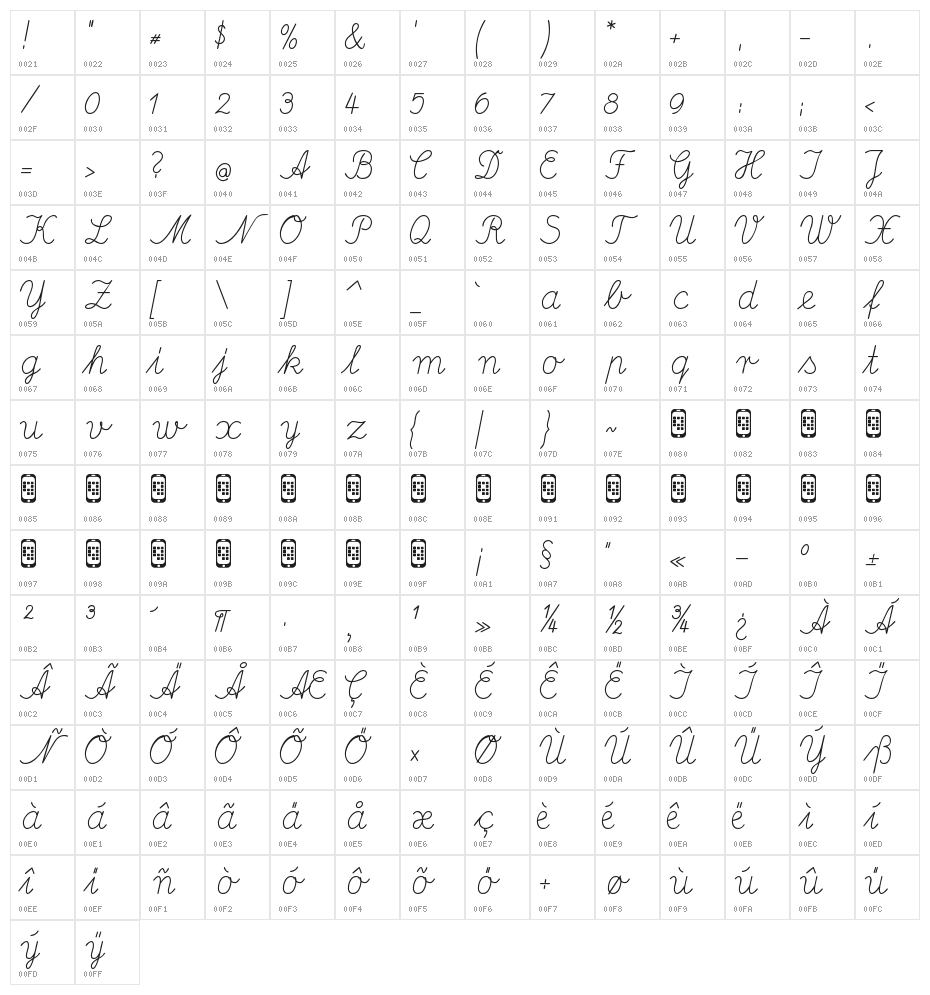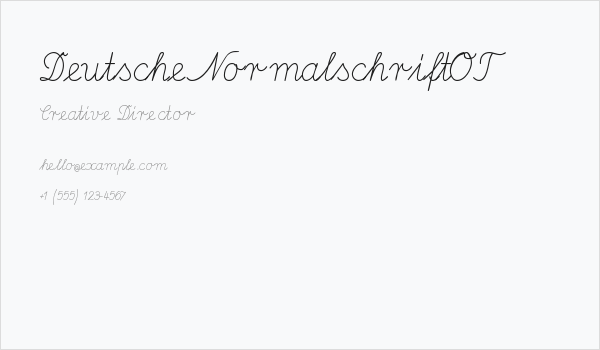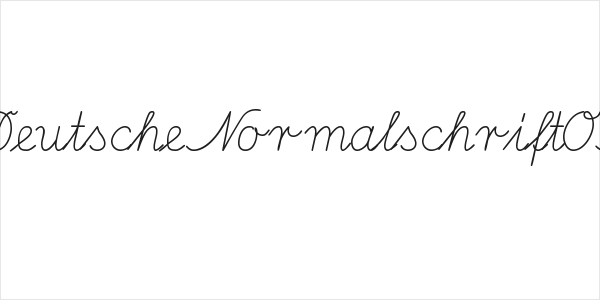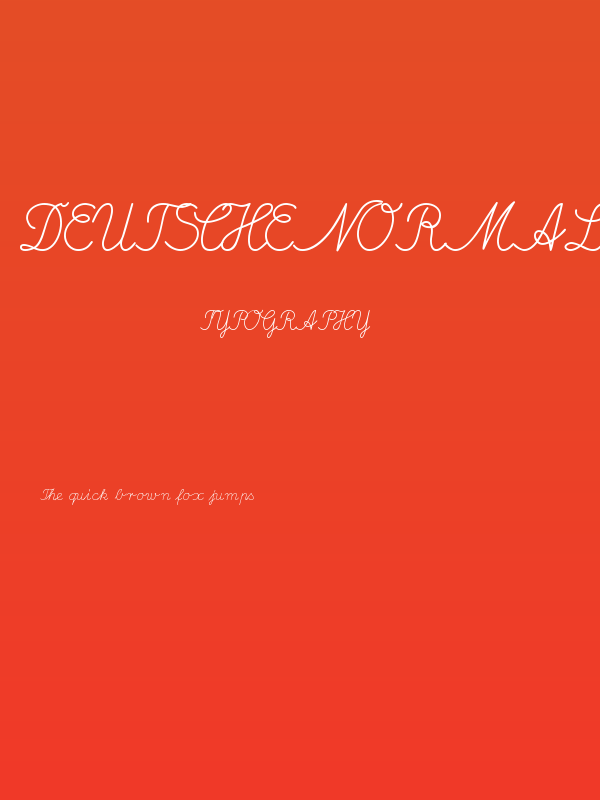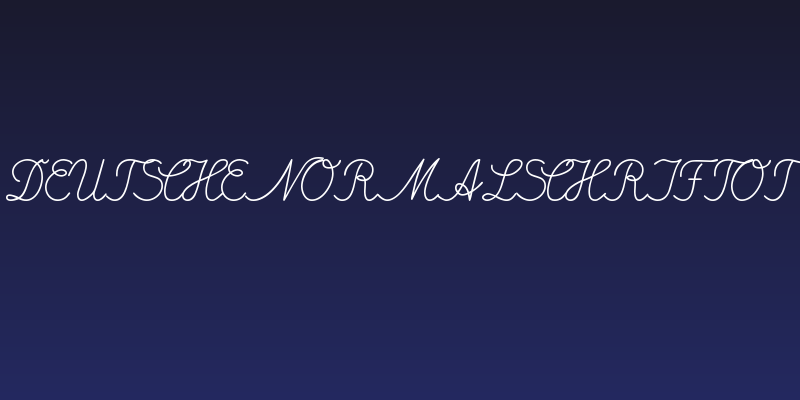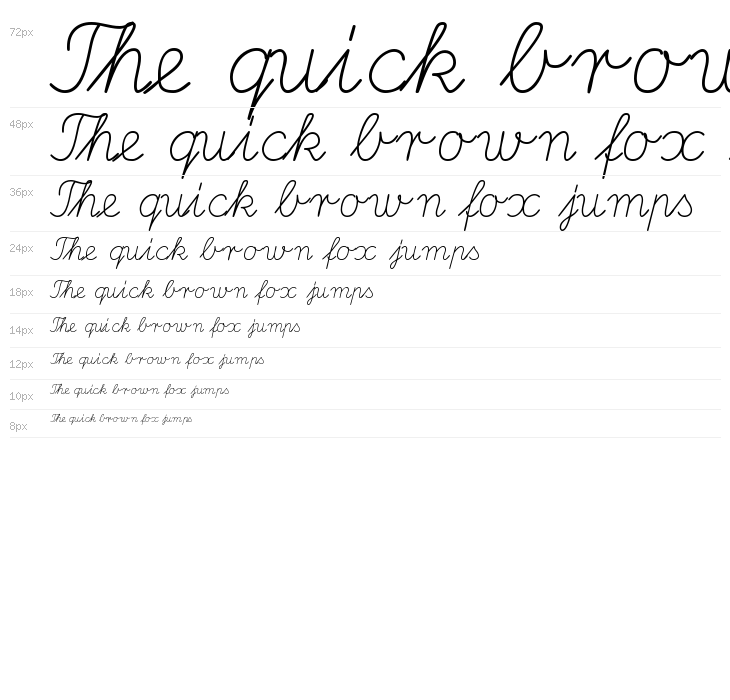
DeutscheNormalschriftOT Font
DeutscheNormalschriftOT Description
This font features an elegant, flowing script style that mimics traditional cursive handwriting. The characters are connected, creating a seamless and fluid appearance. The uppercase letters are slightly more ornate, with subtle flourishes that add a touch of sophistication. The lowercase letters maintain a consistent height, contributing to the font's readability. Numbers and special characters are designed to match the cursive style, ensuring a cohesive look across all text. The overall design is both classic and stylish, making it suitable for a variety of formal and decorative applications.